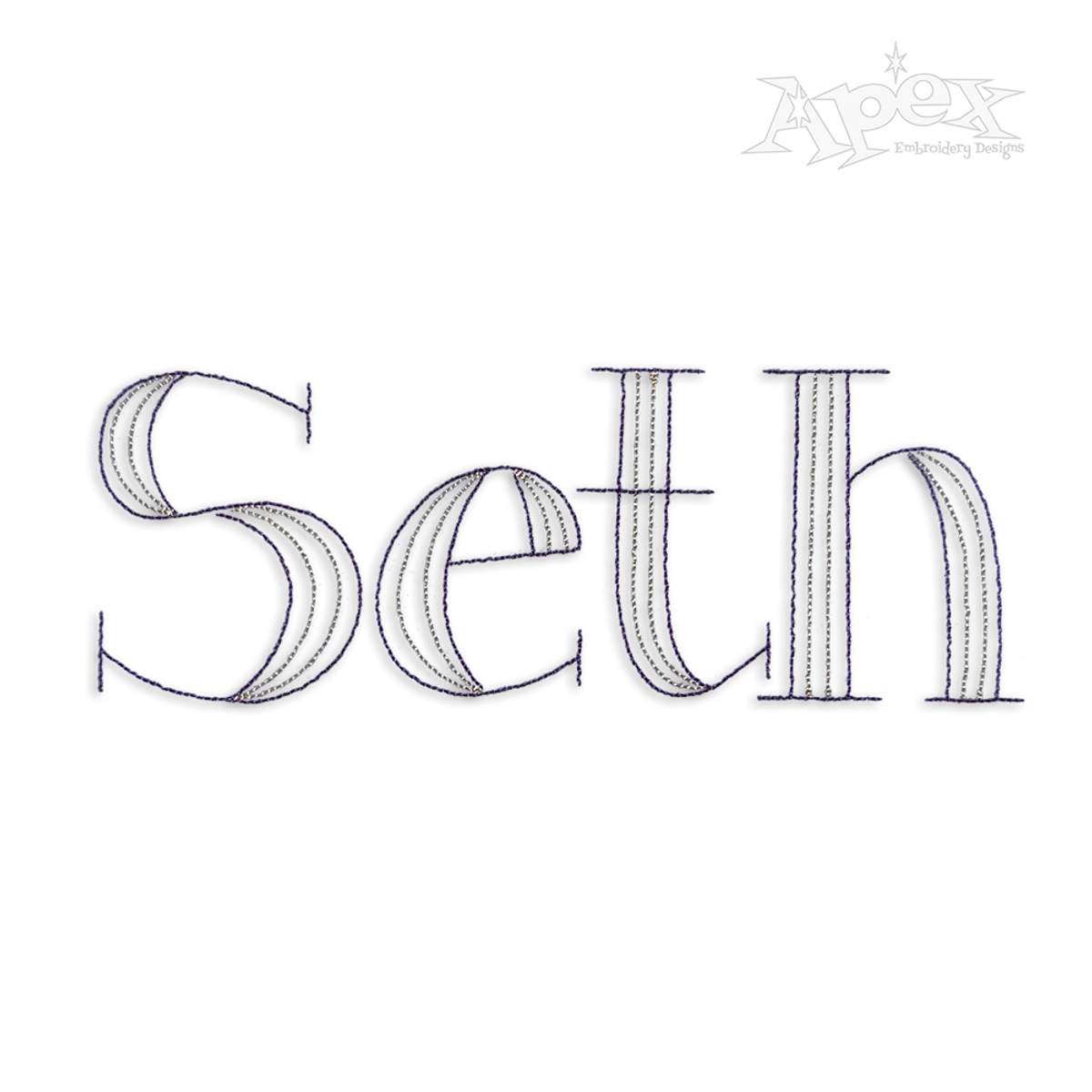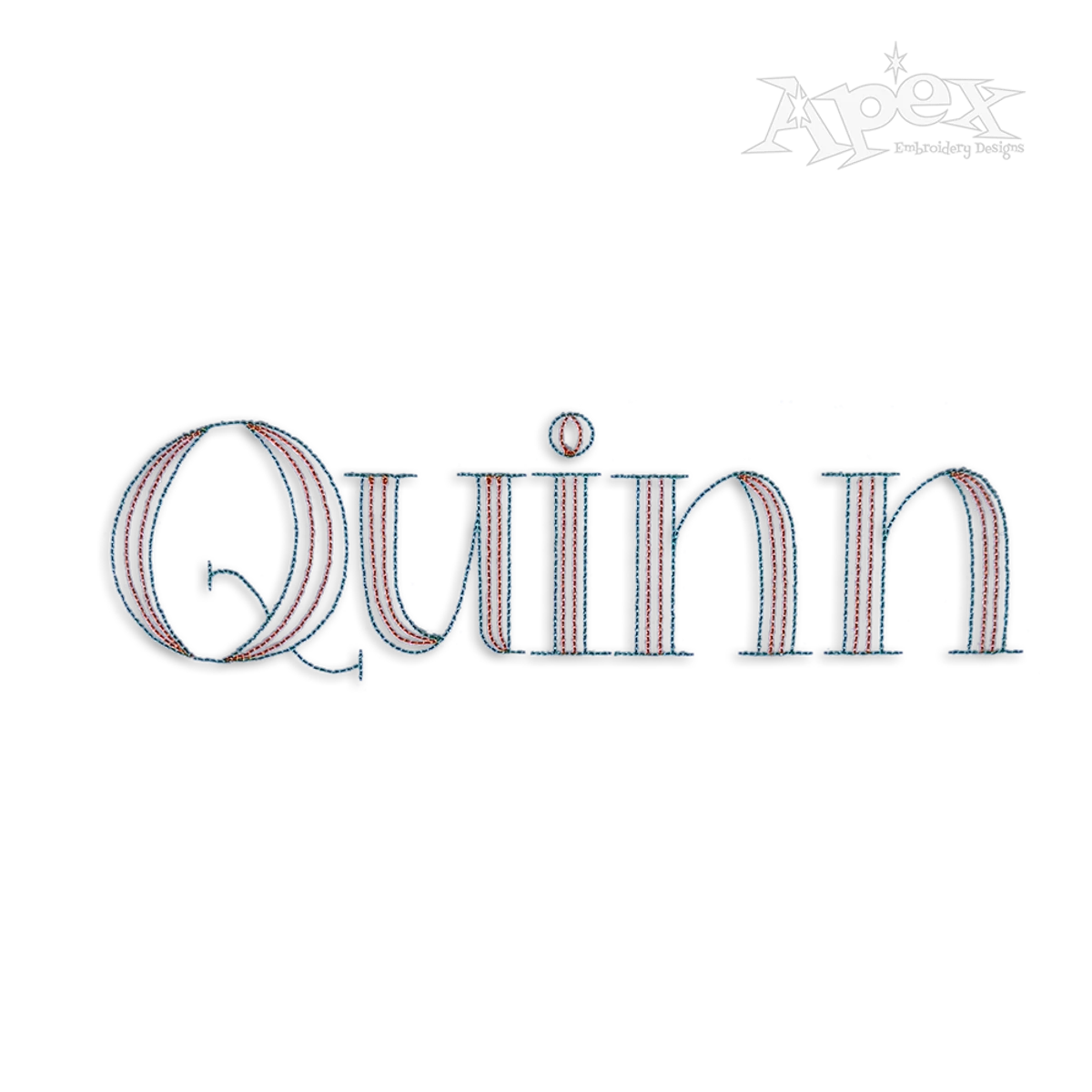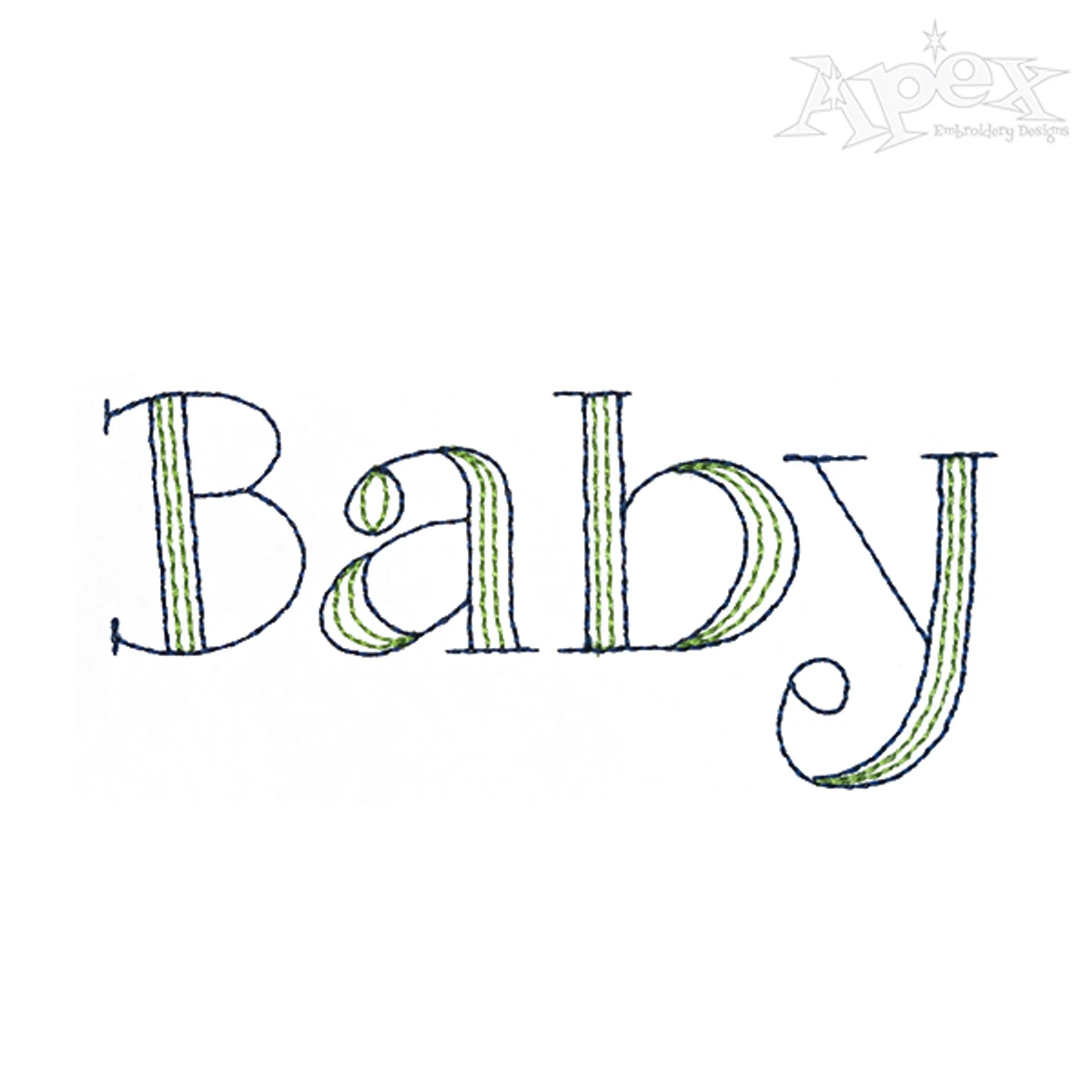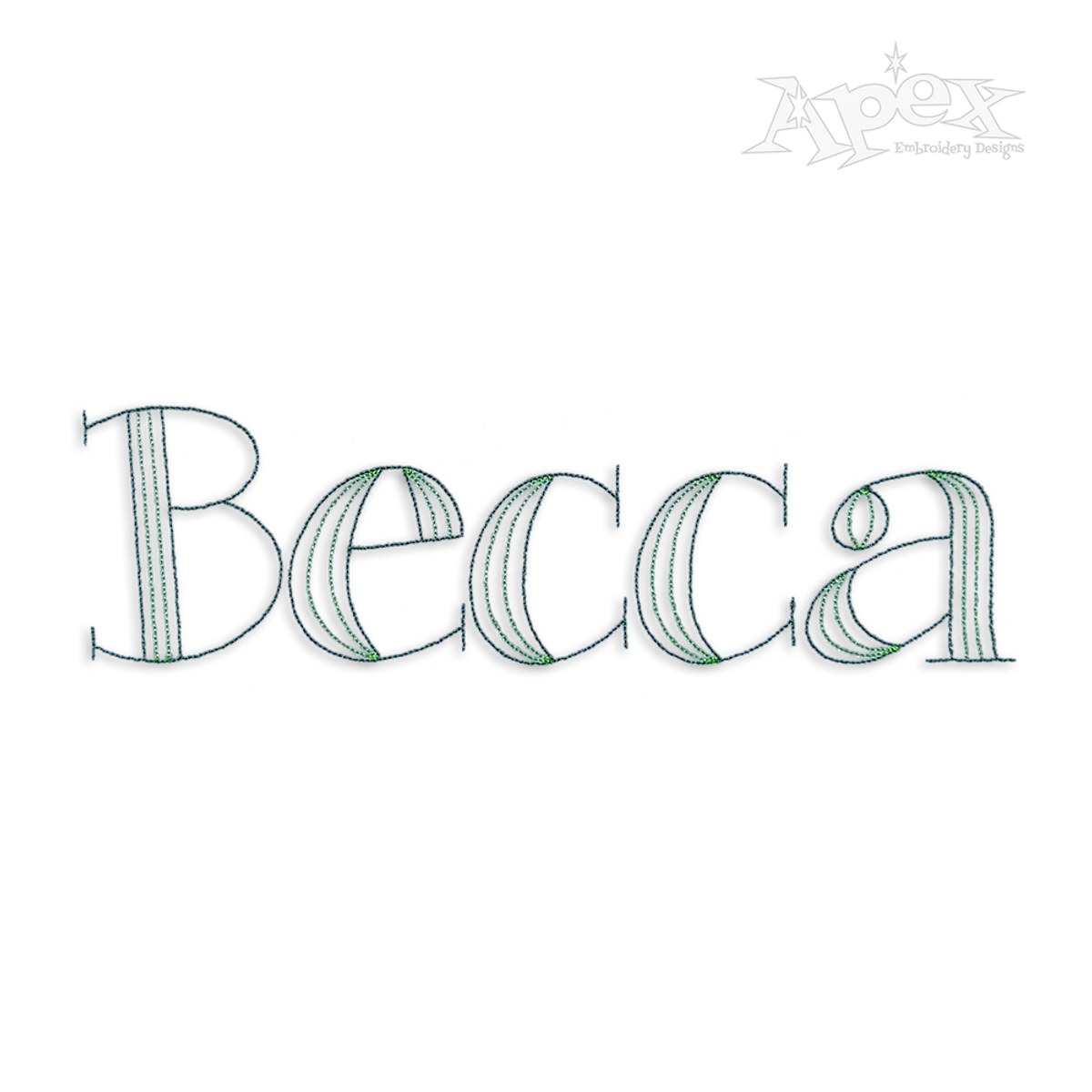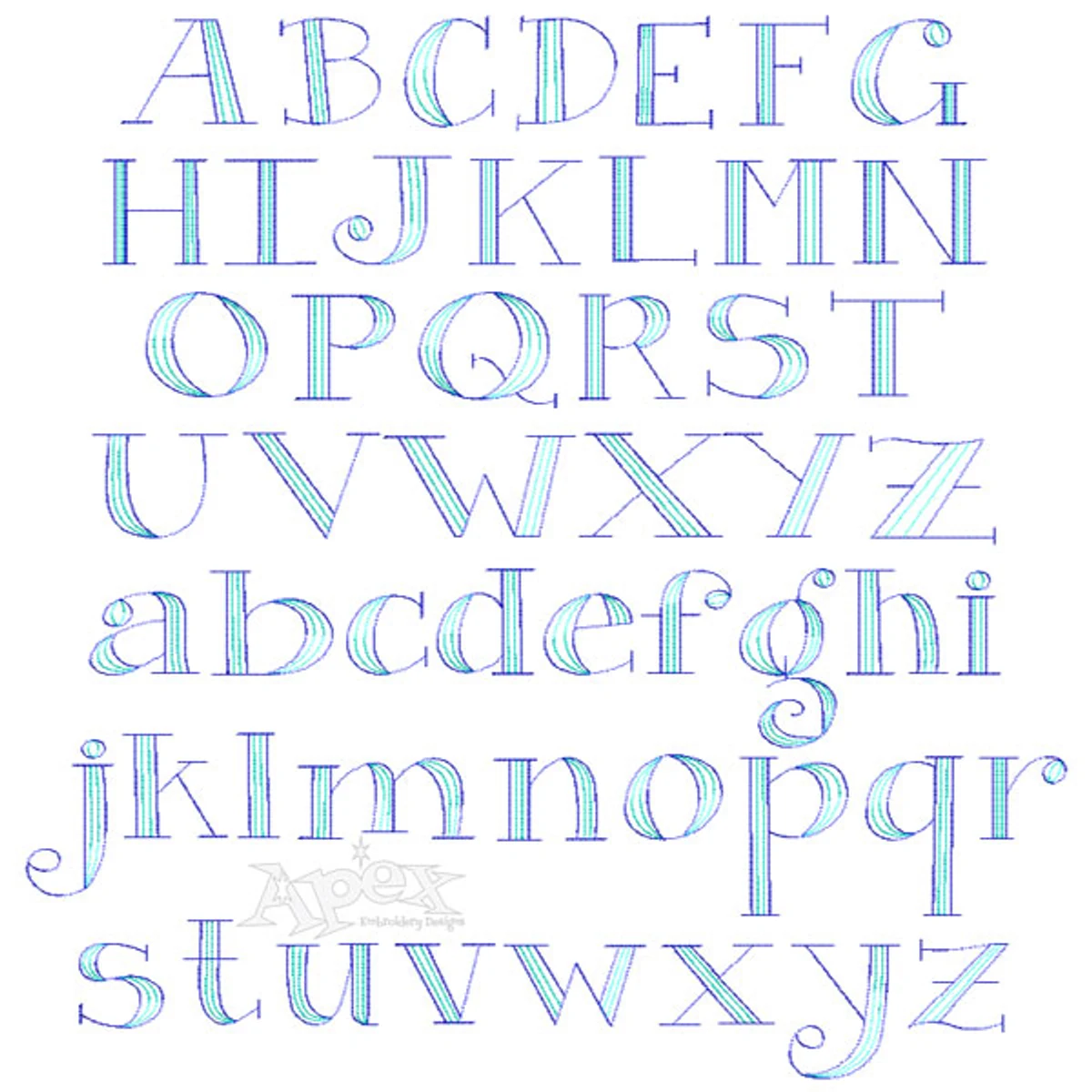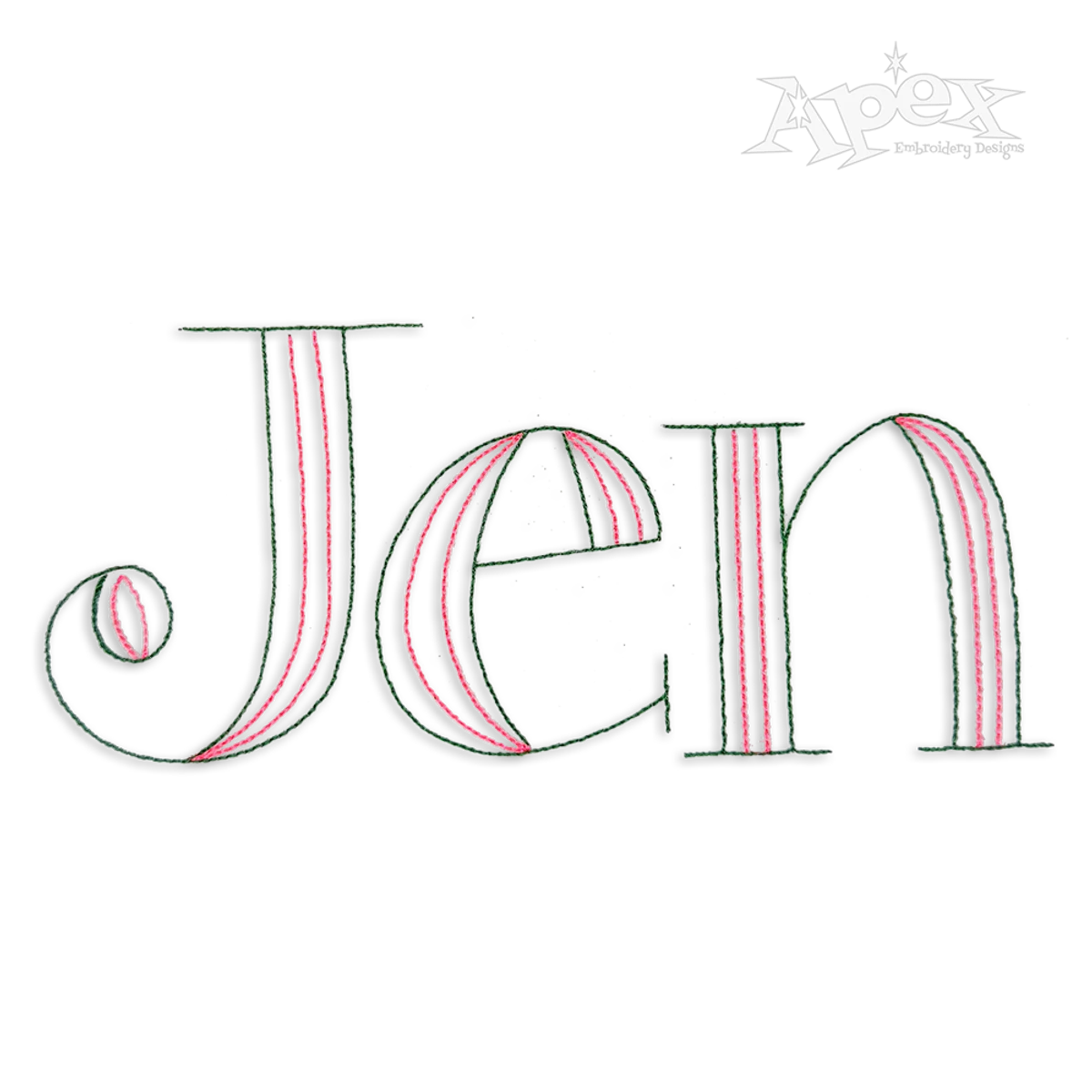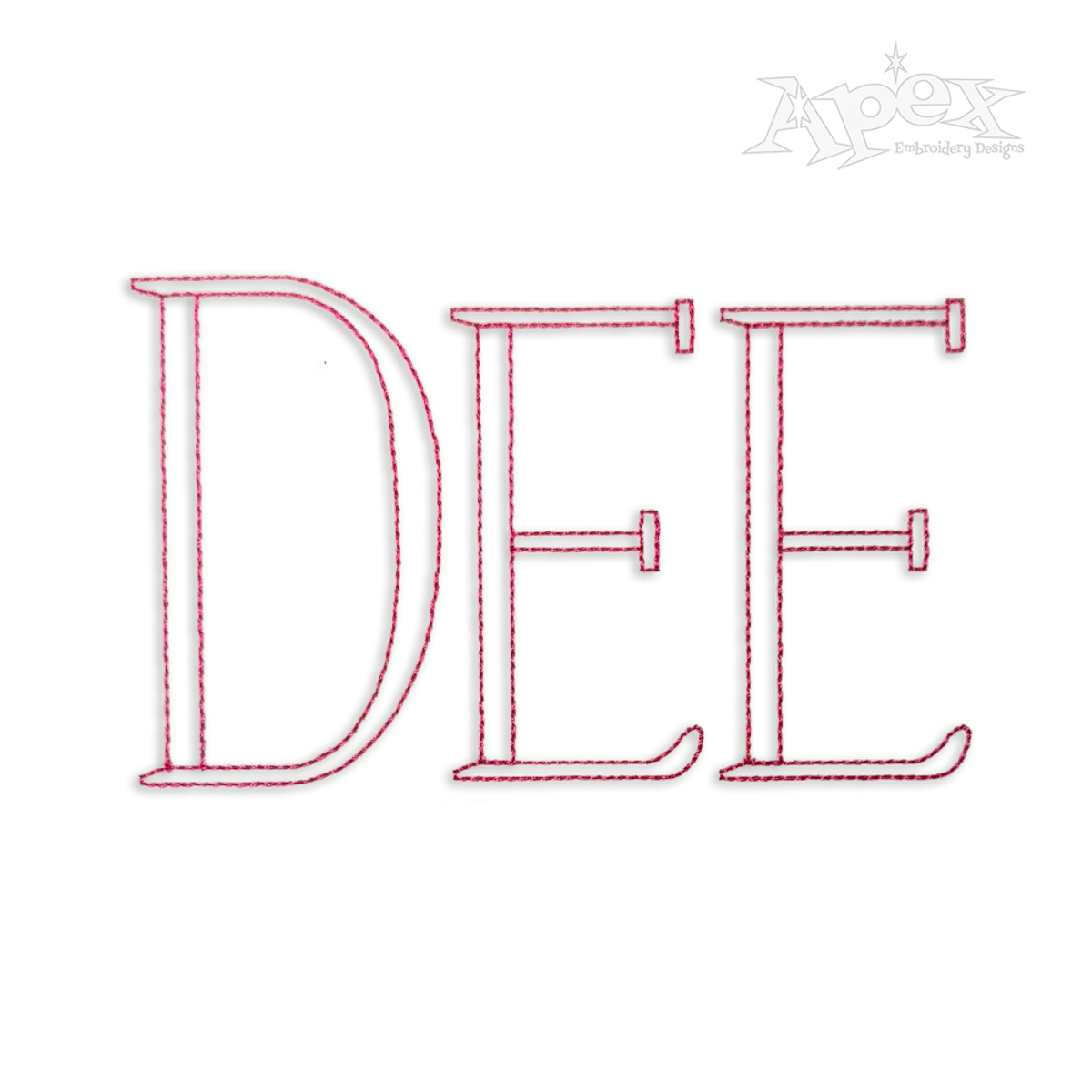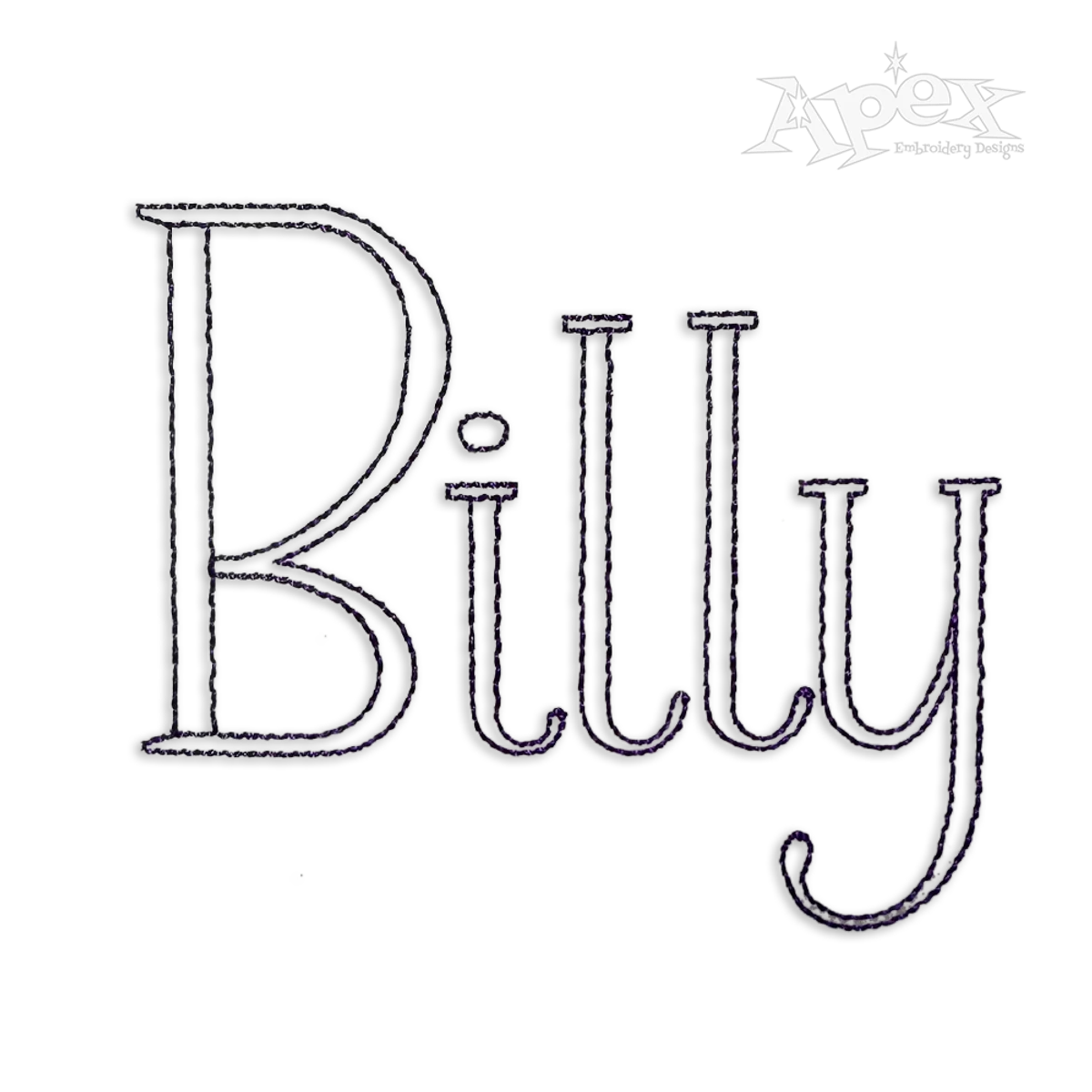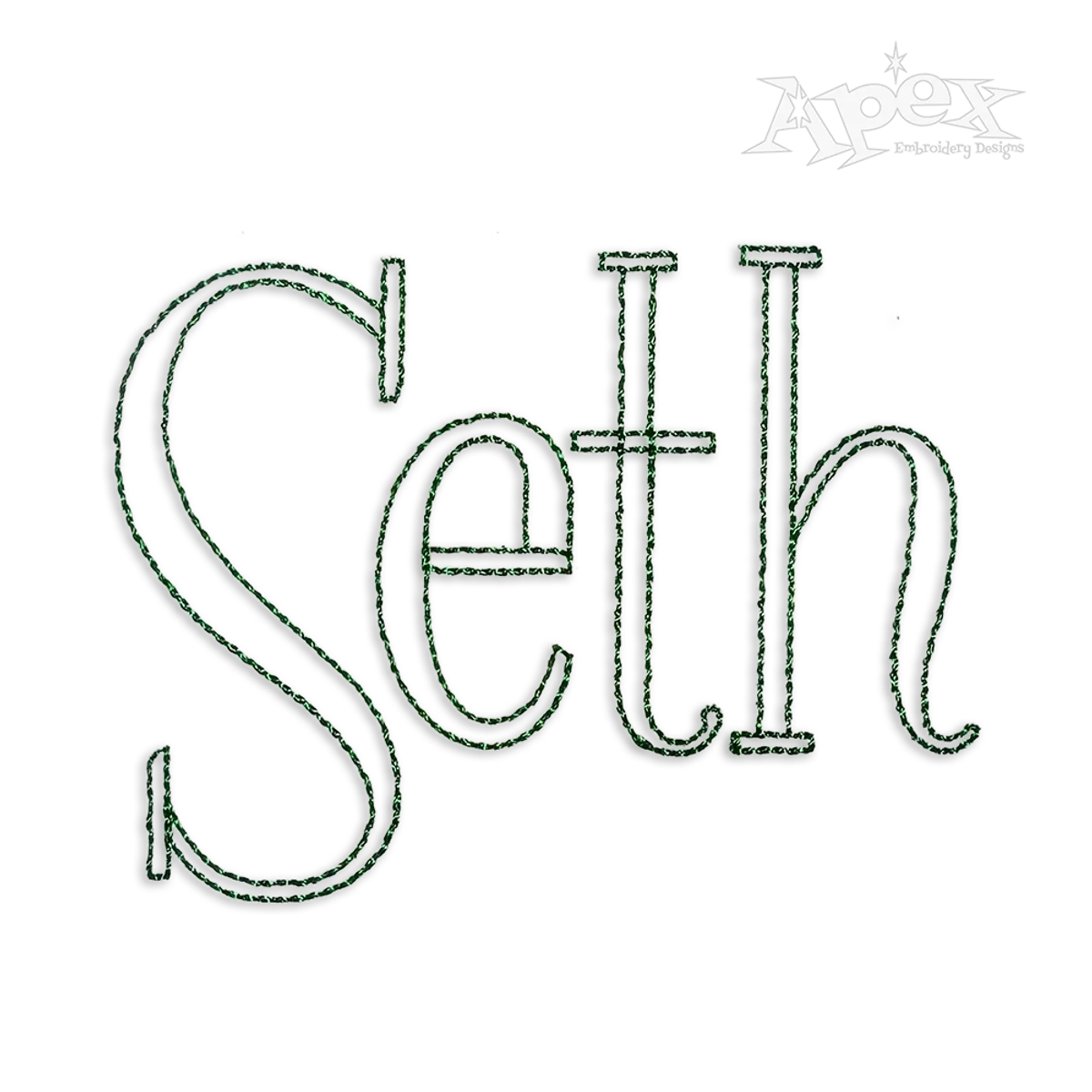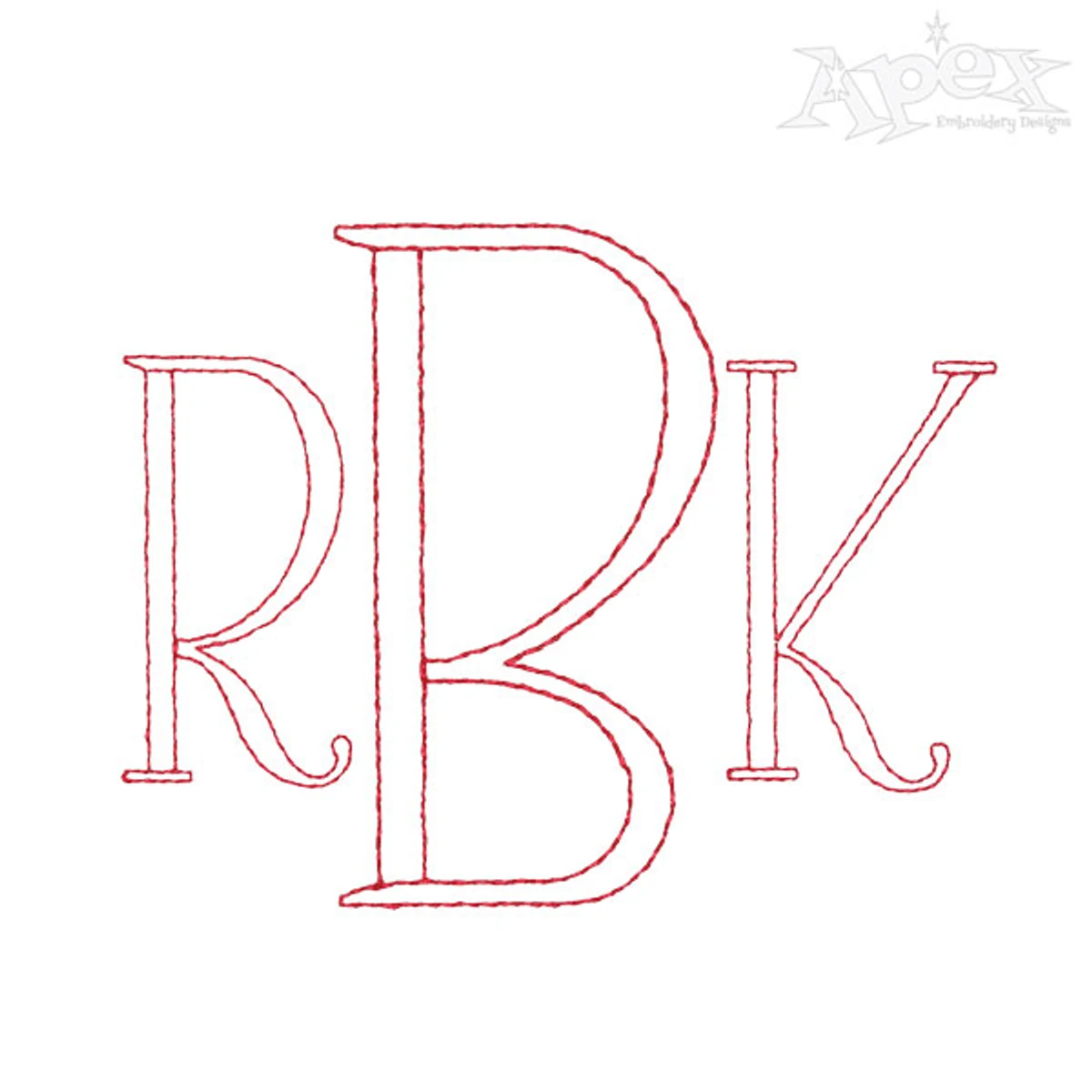
Running Stitch Embroidery Fonts Bundle
This Running Stitch Font Embroidery Fonts Bundle collects 8 lightweight running-stitch monogram fonts into one instant download — a fast script, a kids' font, a cursive quick script, a narrow triple-run style, a block alphabet, and two bean-stitch fonts.
1. Fast Rub Running Stitch Script
2. Kids Running Stitch
3. Running Run Stitch Quick Script (cursive, full A-Z + numbers)
4. Running Quick Stitch (upper, lower & numbers)
5. Narrow Running Stitch (triple run)
6. Running Stitch Block (triple run, A-Z + numbers)
7. Bean Run Stitch (outline alphabet)
8. Baby 2-Color Sketch Bean Stitch